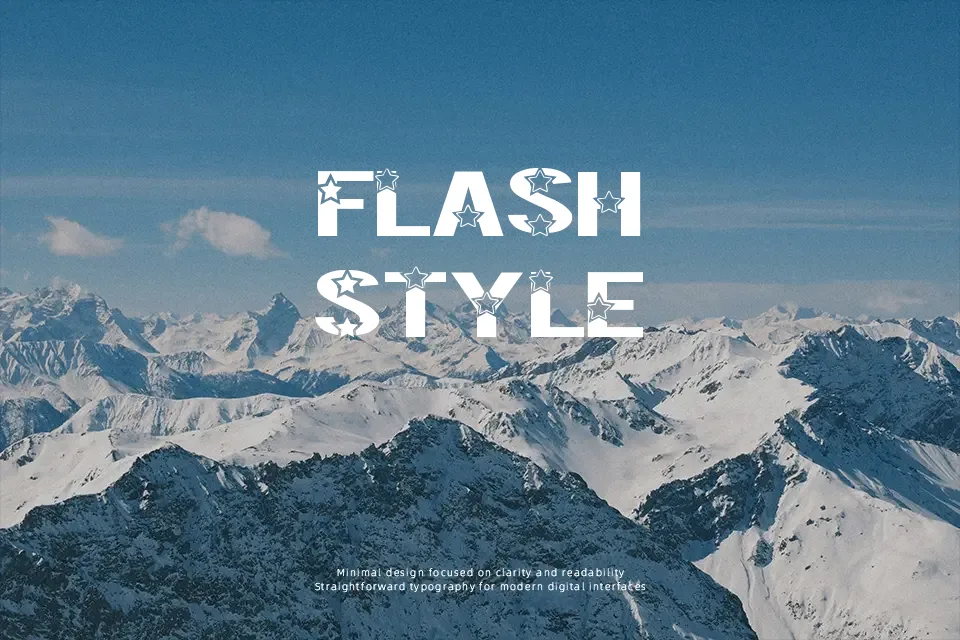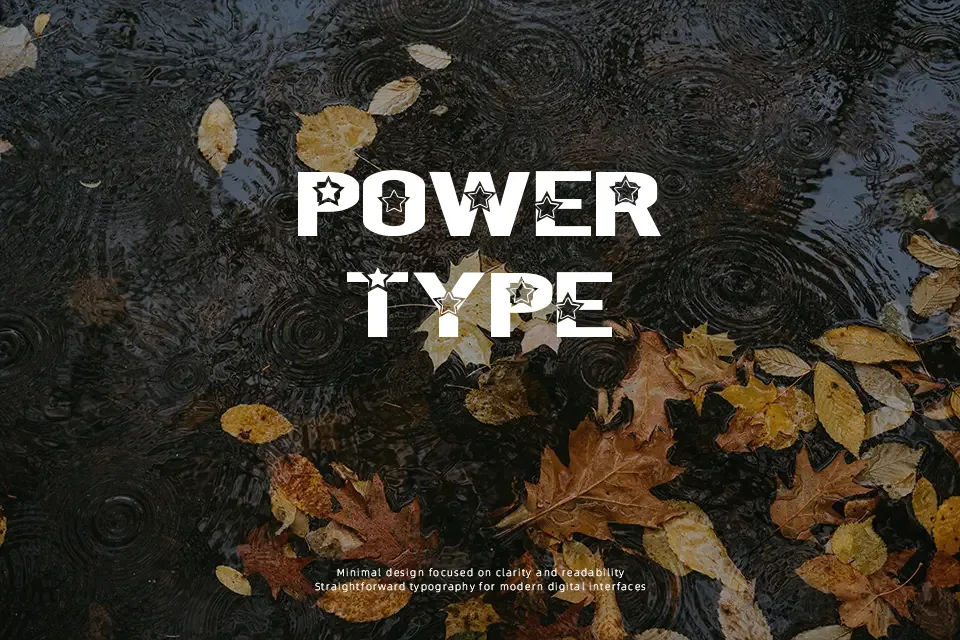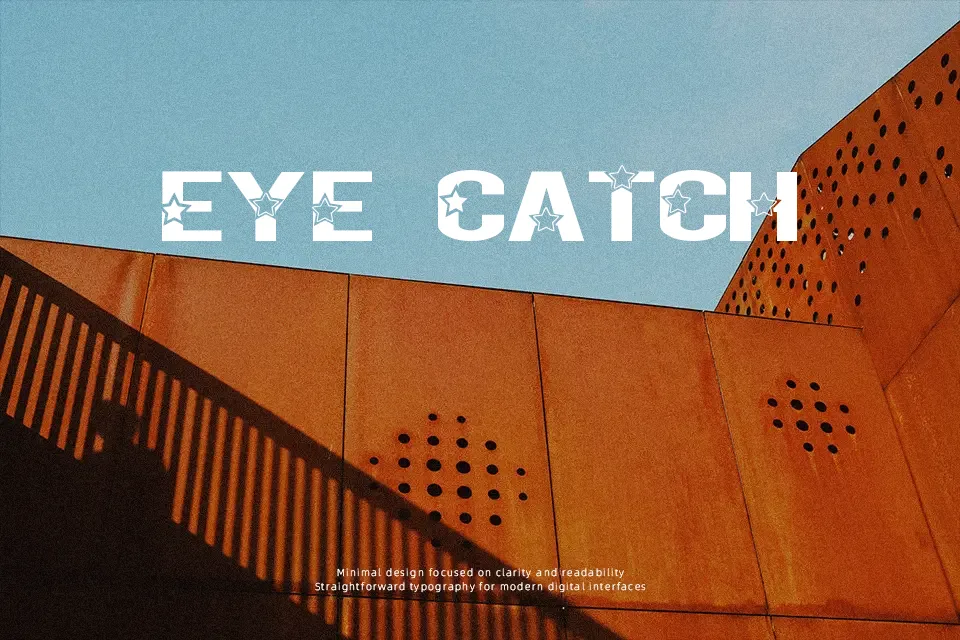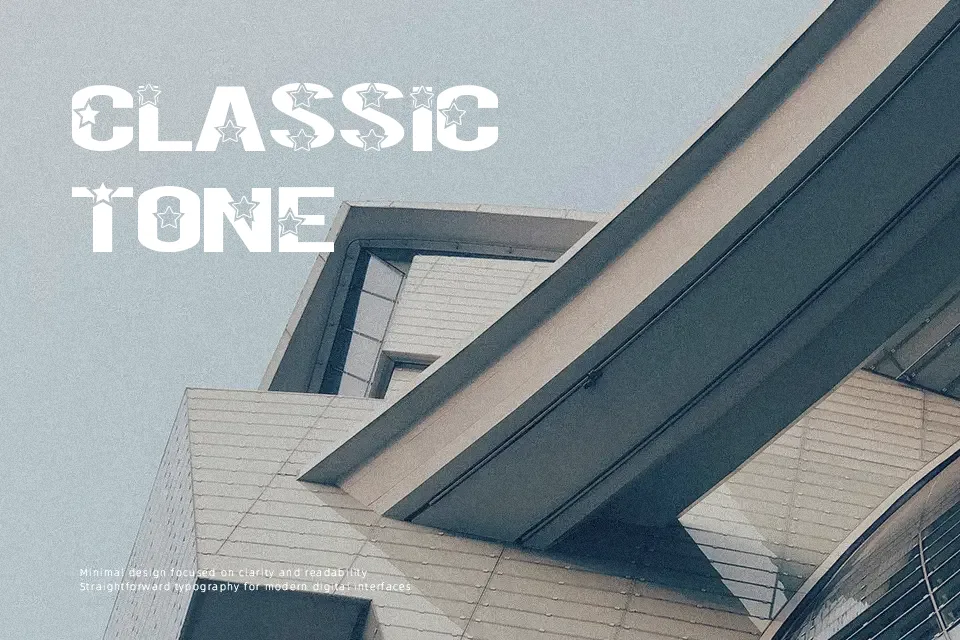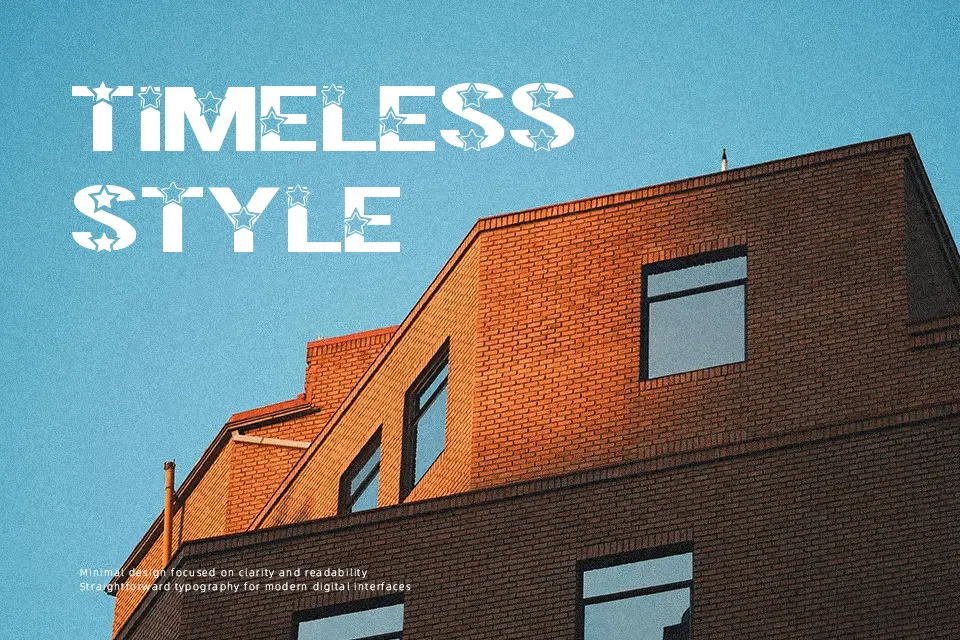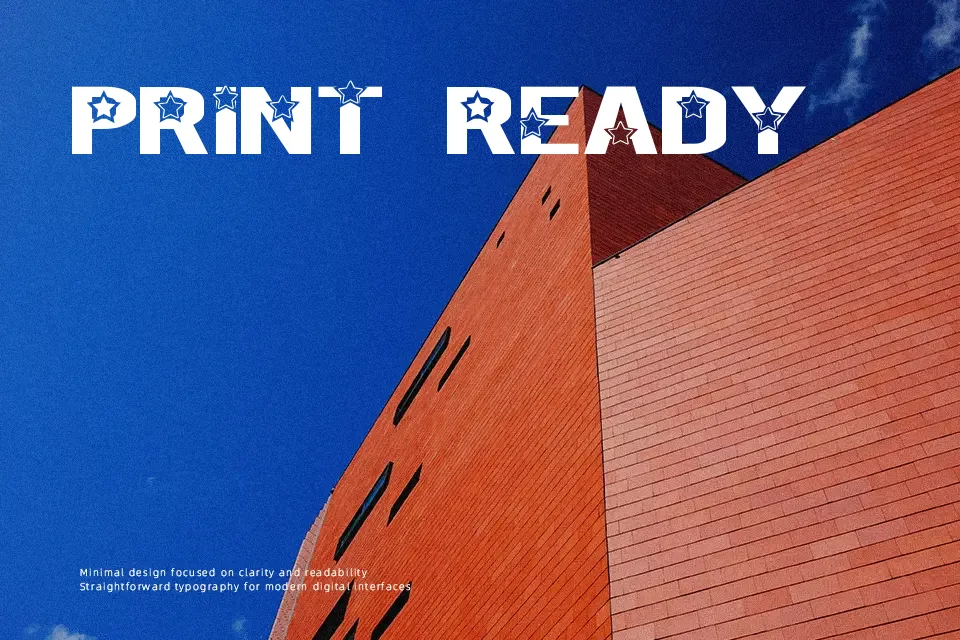
Rock X Start TFB Font
Designed by zanatlija
Rock X Start TFB Font immediately establishes a commanding presence through its rugged strokes and robust character proportions. The strong letterforms feature a highly decorative structure that emphasizes raw energy over traditional geometric balance. Its relatively tight character spacing helps maintain cohesive visual rhythm across short, impactful headlines. The bold weight ensures excellent visibility in large display formats, making the typeface highly suitable for music merchandise and edgy branding campaigns. The dense forms naturally reduce continuous reading comfort, which stands as a clear limitation. Ultimately, the intricate decorative details become less effective at smaller sizes, requiring careful consideration before applying the design to dense paragraphs.
Best For: music festival posters, energetic apparel branding, edgy album covers, bold headline layouts
Not Ideal For: long paragraph text, dense editorial layouts, small interface labels
Perfect for branding, fashion, and headline, with a bold and decorative style.